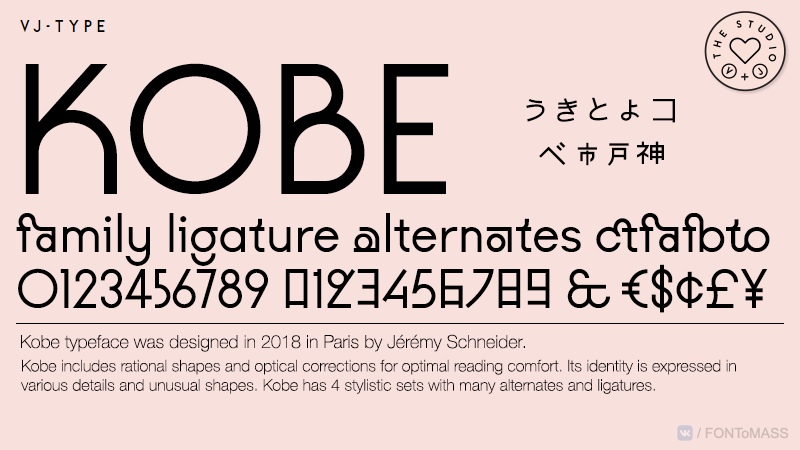
Kobe Font
Kobe Font is ideal for basketball team branding, sports merchandise design, athletic performance materials, championship celebration graphics, motivational fitness campaigns, competitive sports marketing, victory announcement posters, sports legacy tributes, athletic achievement awards, and inspirational athletic communications.
What makes Kobe Font so exciting is its powerful embodiment of relentless determination and championship excellence that captures the legendary spirit of greatness and unwavering commitment to perfection. This dynamically crafted typeface features strong, confident letterforms with precise athletic proportions and championship character details that immediately convey dedication, excellence, and the pursuit of legendary status. The font's winning construction and inspirational aesthetic create an immediate sense of competitive drive and achievement potential, making it perfect for projects that need to communicate the champion mindset, athletic excellence, and the transformative power of dedication to audiences seeking motivation and inspiration in their pursuit of greatness.
The Kobe Font family typically includes multiple championship weights and victorious styles, often featuring regular, bold, and ultra-bold variations along with dynamic italic versions. Athletic font collections frequently offer additional performance elements such as sports symbols, victory ornaments, and motivational flourishes that enhance the championship aesthetic and provide designers with comprehensive tools for creating inspiring and achievement-focused communications.
The championship nature of Kobe Font makes it particularly effective for targeting demographics that value excellence, dedication, and peak performance in their personal and professional endeavors. Sports marketers and motivational speakers will find this font especially valuable for materials that must establish immediate credibility and inspire audiences to pursue their highest potential and achieve legendary results.
What sets Kobe Font apart is its ability to convey championship excellence while maintaining the humility and work ethic that true champions demonstrate. This balanced characteristic makes it suitable for both competitive applications and inspirational contexts where projecting greatness and encouraging others to achieve excellence is crucial.
Professional designers recognize that Kobe Font brings invaluable motivational power to projects across industries including sports marketing, fitness training, personal development, and achievement coaching. Its championship character and inspirational appeal make it essential for organizations whose mission centers on helping others achieve greatness and reach their full potential.
The legendary excellence embedded in Kobe Font ensures consistent motivational impact across all championship-focused communication applications while honoring the spirit of true athletic greatness.